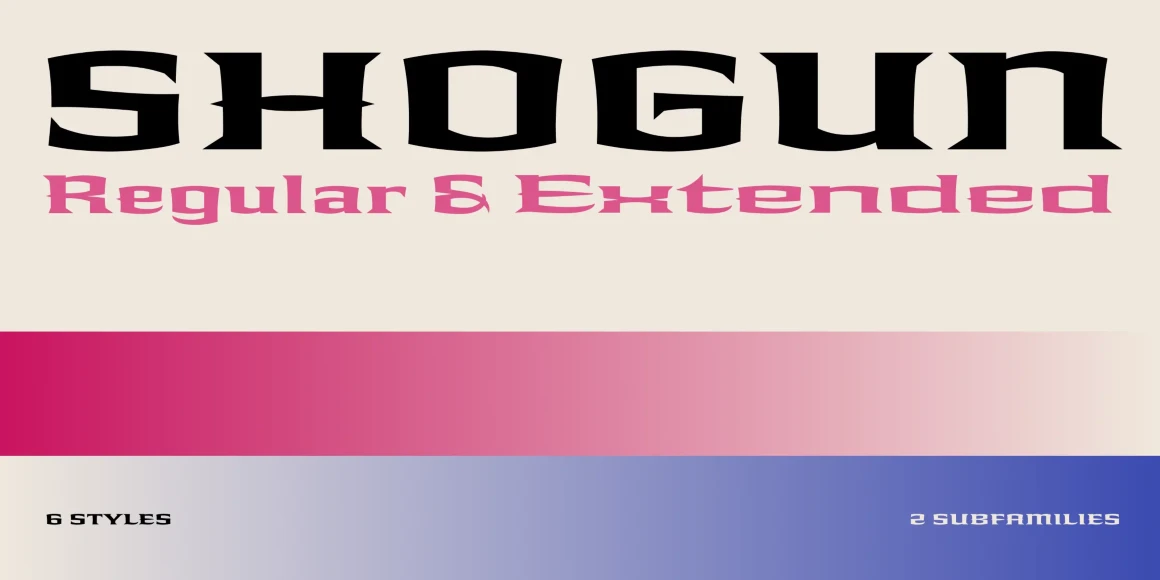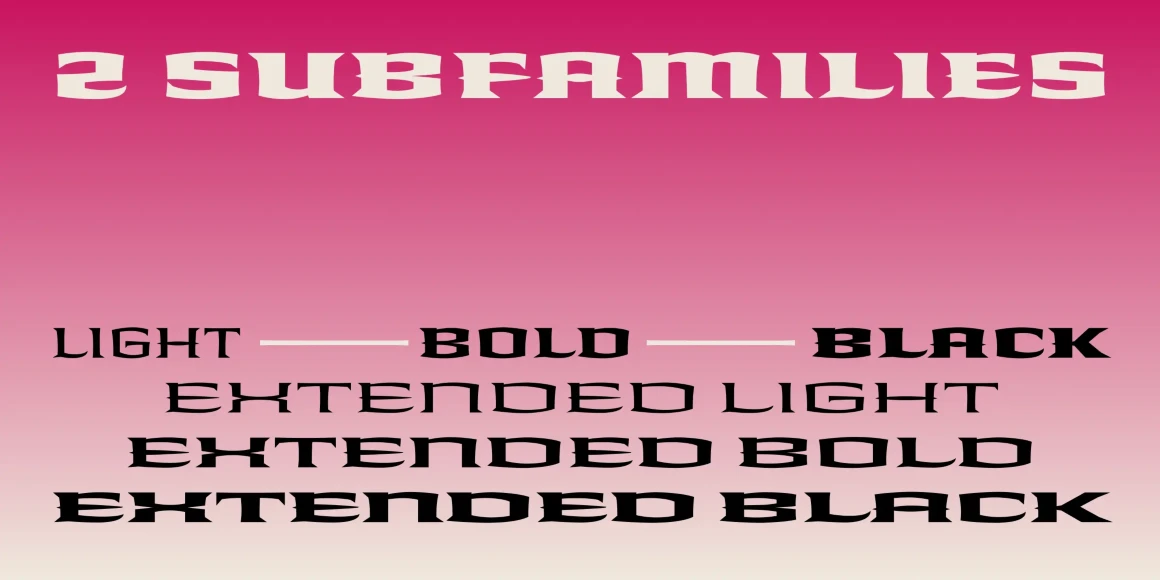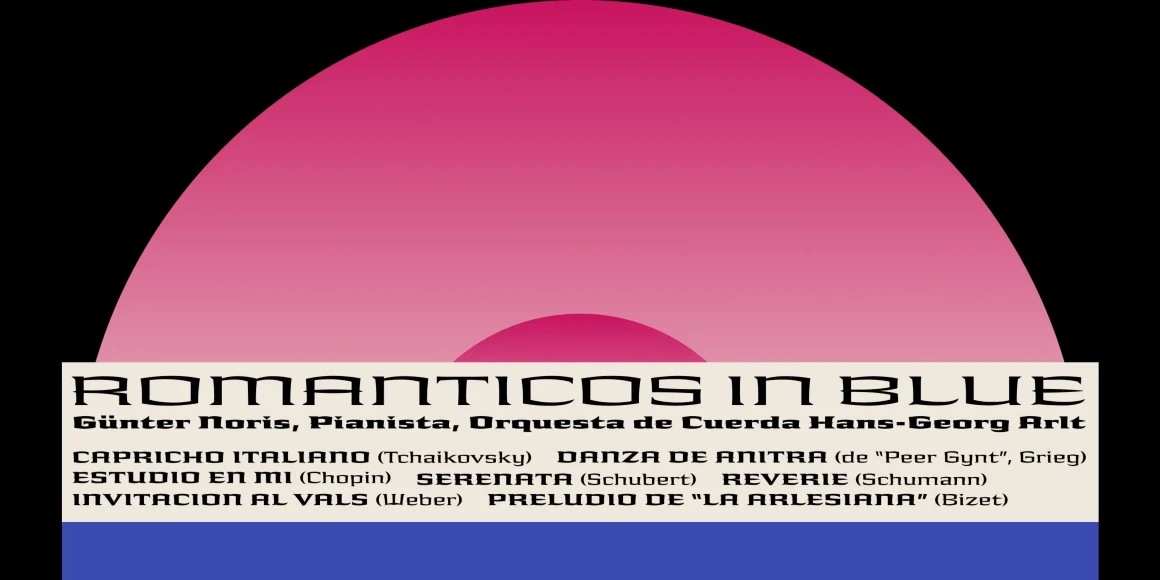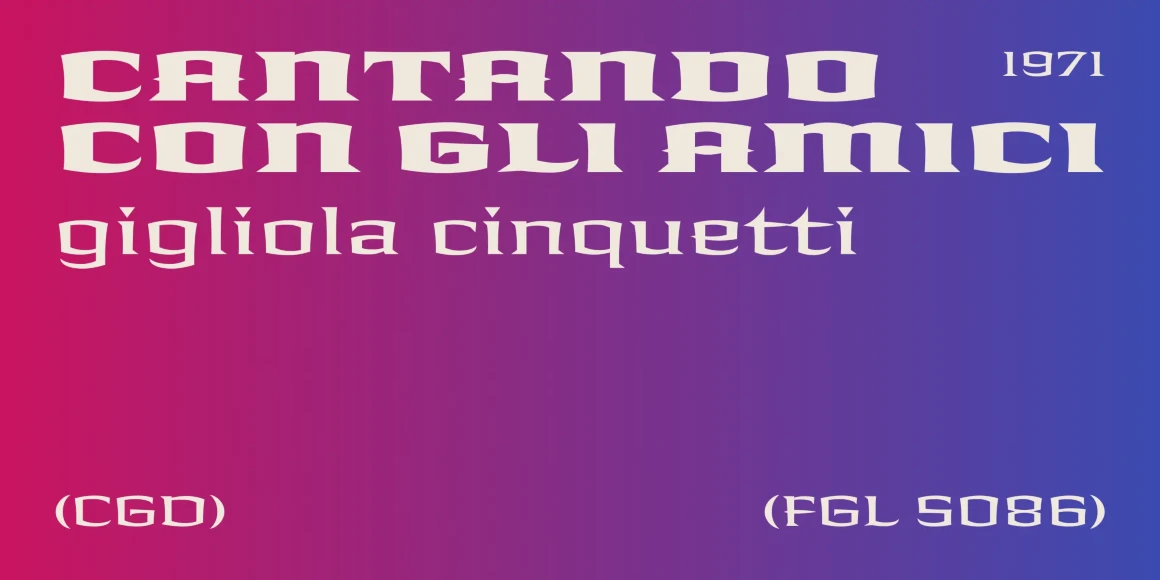
Shogun
From Lipton Letter Design
Shogun is part of a six-part wide, ornamental headline series of three weights in regular and extended widths. Richard Lipton began with a few characters drawn for a striking contemporary logotype designed by Los Angeles graphic designer Margo Chase. The size of the series allows Chase’s ideas to be applied to a variety of display uses, offering a set of weights and widths that repeat unusually similar shapes and themes.
Designed by Richard Lipton